In the fast-paced world of digital design, your choice of typography is often the first thing that signals to an audience whether a brand is stuck in the past or built for the horizon. Futuristic fonts are no longer reserved for sci-fi cinema; they have become a vital tool for the tech, gaming, and UI/UX industries to communicate innovation, speed, and sophistication. As we move deeper into an era defined by AI and sleek minimalism, the right typeface acts as a visual shorthand for "the next big thing."
Whether you are a graphic designer building a brand identity for a fintech startup or a developer crafting a high-performance interface, understanding the nuances of futuristic type is essential for creating a cohesive user experience. A font choice can mean the difference between looking "dated" and looking "distinguished."
In this post, we’ll provide 38 curated examples of futuristic fonts that are trending right now. We will explore why these specific styles—from geometric minimalism to industrial tech-inspired weights—are so emblematic of modern aesthetics and how you can implement them to elevate your next project.
The "Vibe": Space-Age Deco & Retro-Futurism
Best Used For: Movie Titles, Sci-Fi Posters, Neon Signage, and Bold Branding
Key Characteristic: Dual-style availability (Normal and Inline) with 300+ glyphs featuring unique geometric alternates and art-deco-inspired curves.
The "Vibe": High-Tech Minimalist & Circuit-Board Chic
Best Used For: UI/UX Dashboards, Tech Branding, Robotics Interfaces, and Modern App Icons.
Key Characteristic: A rounded, monolinear construction featuring technical ligatures and specialized glyphs that mimic circuit paths and digital connectivity.
The "Vibe": Mystical Sci-Fi & Ancient-Future Fusion
Best Used For: Movie Branding, Gaming Titles (RPG/Adventure), Book Covers, and Artistic Apparel Design.
Key Characteristic: A decorative display font that features tribal-like geometric symbols, unique circular ligatures, and an extensive set of multilingual accents.
The "Vibe": Industrial Mecha & Heavy Robotic
Best Used For: Gaming Headlines, Esports Logos, Military-Tech Branding, and Action Movie Titles.
Key Characteristic: A bold, blocky display font featuring aggressive 45° angles and stencil-like gaps that mimic the heavy armor plates of mecha robots or industrial machinery.
The "Vibe": Sci-Fi, NASA-inspired, and sleek futuristic tech.
Best Used For: Science-fiction movie posters, high-tech logotypes, space-themed marketing, and aerospace branding.
Key Characteristics: A unique slab serif font that blends "unearthly" geometric characters with a clean, modern aesthetic. It features stylized "cut-outs" and elongated horizontal bars in letters like 'E' and 'S' to emphasize a high-speed or technical feel.
The "Vibe": Minimalist Luxury & Y2K Futurism.
Best Used For: High-end tech branding, editorial designs, modern logos, and digital promotion materials like brochures or posters.
Key Characteristics: This typeface blends a sophisticated, classy aesthetic with a futuristic "Y2K" feel. It features distinctive wavy horizontal bars in letters like 'E' and 'B', giving it a fluid yet technological look.
The "Vibe": Cyber-Tech & Industrial Science Fiction.
Best Used For: Logo designs for tech companies, futuristic gaming interfaces, automotive branding, and hardware packaging.
Key Characteristics: This is a futuristic display typeface designed to provide a distinct technological feel. It features ultra-wide, horizontal letterforms with circuit-inspired terminals (small circular nodes) on various characters like the 'd', 'g', and 'o'.
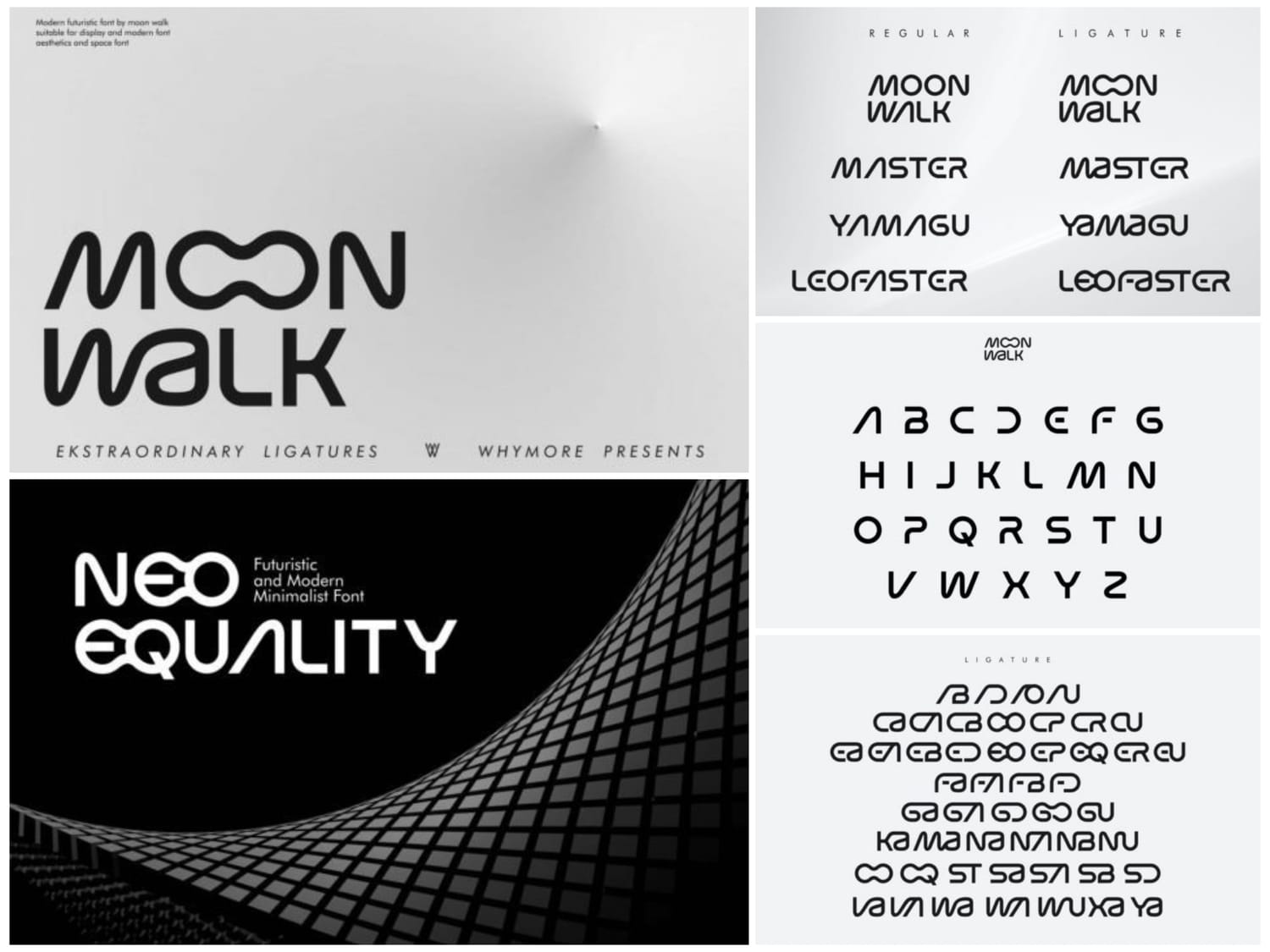
The "Vibe": Minimalist Futurity & Elegant Space-Age.
Best Used For: Branding, minimalist logos, design templates, and promotional tools like posters or brochures that require a modern, futuristic aesthetic.
Key Characteristics: This typeface blends a clean sans-serif structure with a modern, versatile style. It is defined by minimalist forms and specific curves at the ends of letter ornaments that give it an elegant, forward-looking feel. Includes uppercase characters, numbers, punctuation, and a wide array of extraordinary ligatures. Works on Windows, Apple/Mac, and Linux, and is compatible with cutting machines like Cricut and Silhouette.
Helvetica: This widely used sans-serif font became NASA's default typeface in 1976, including the updated "worm" logo. Helvetica is another commercially available font.